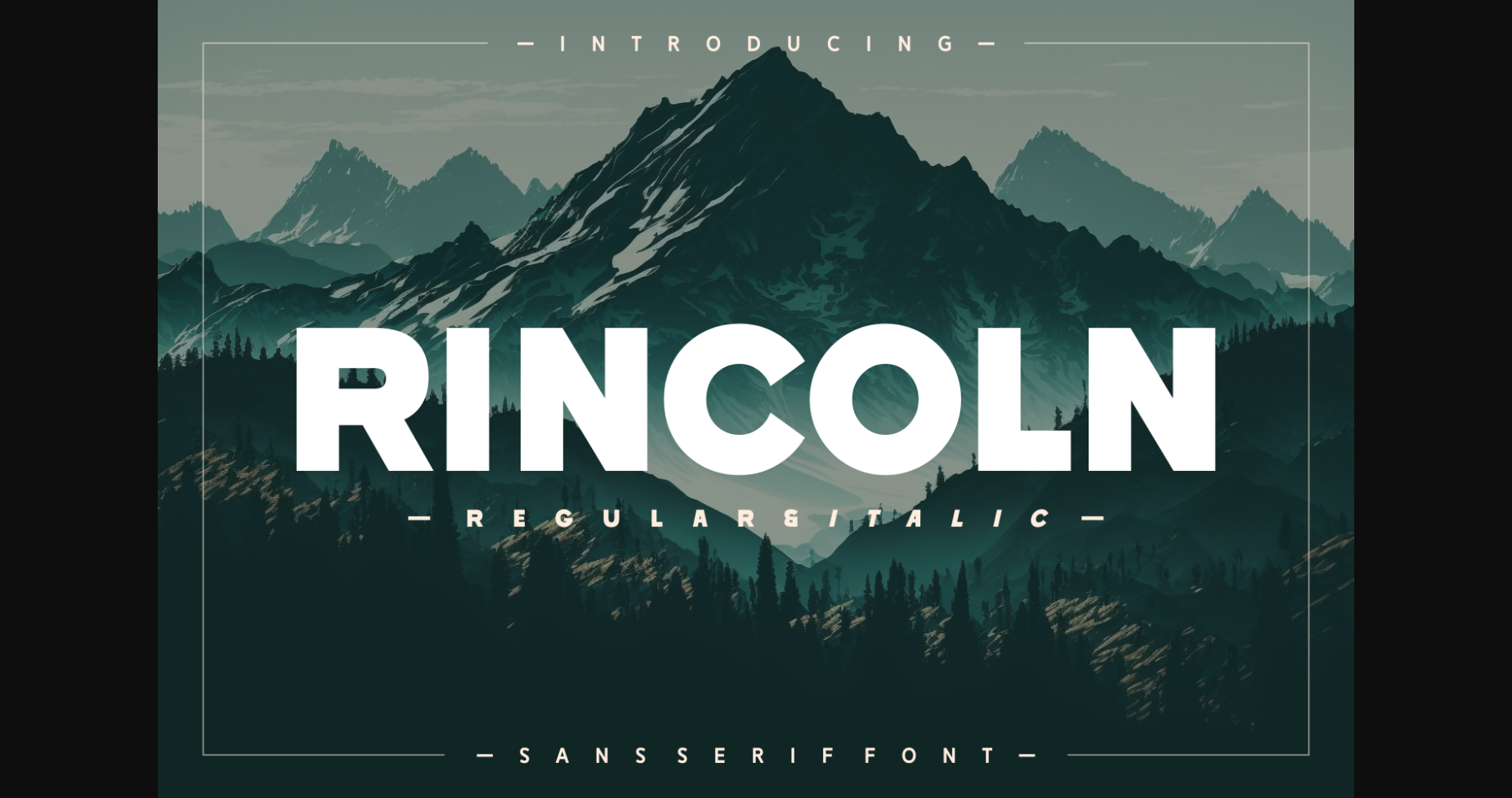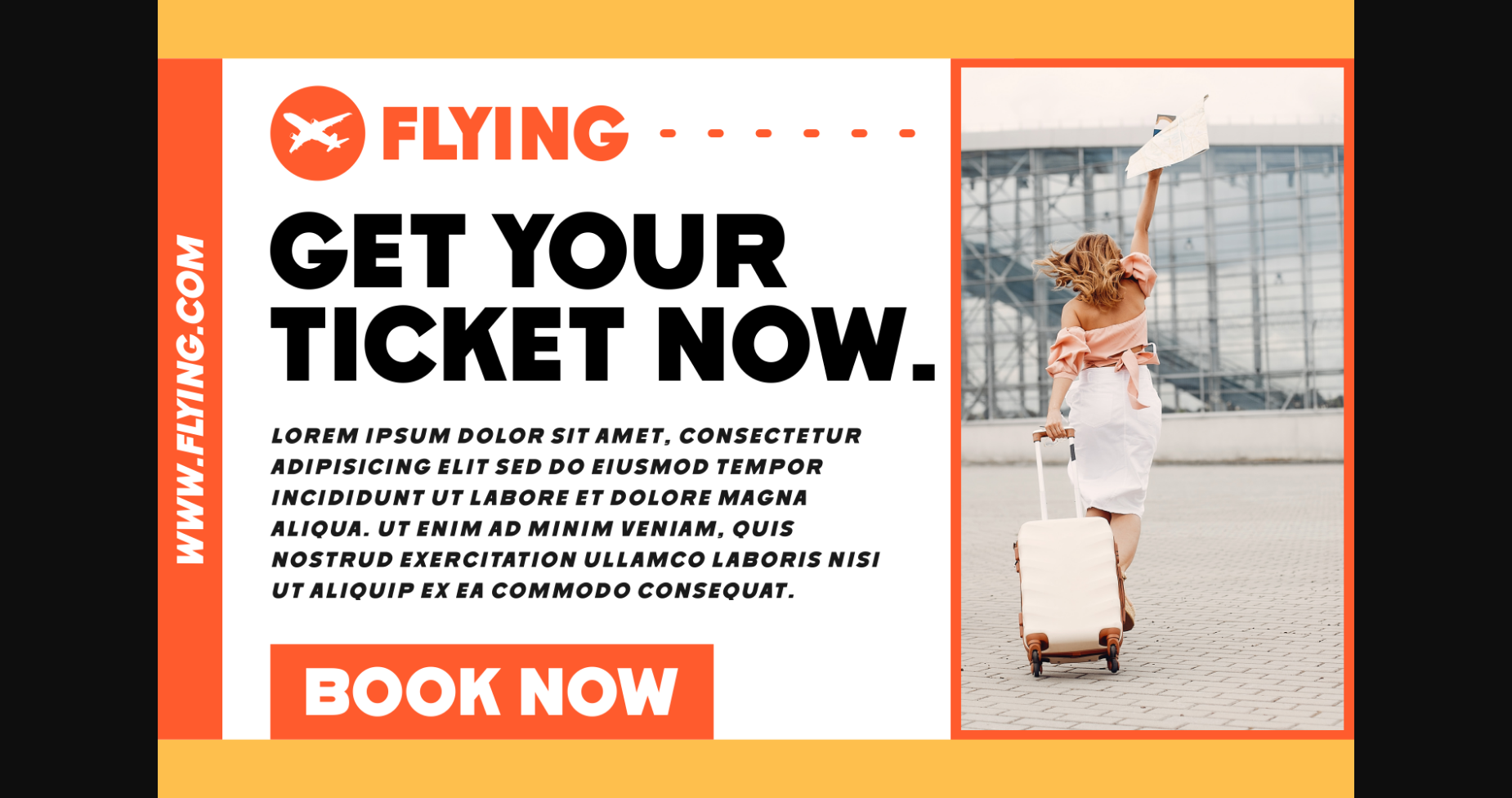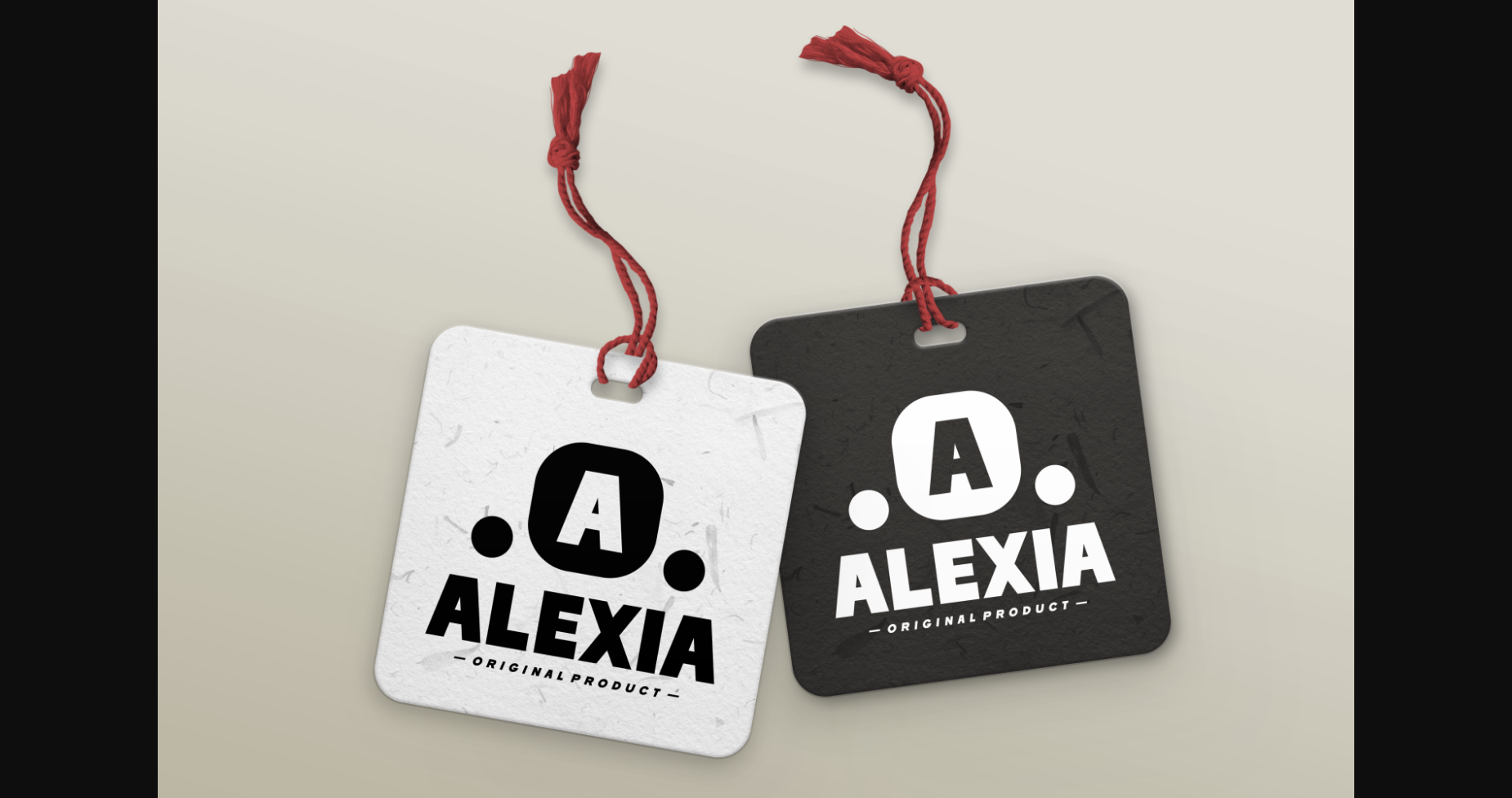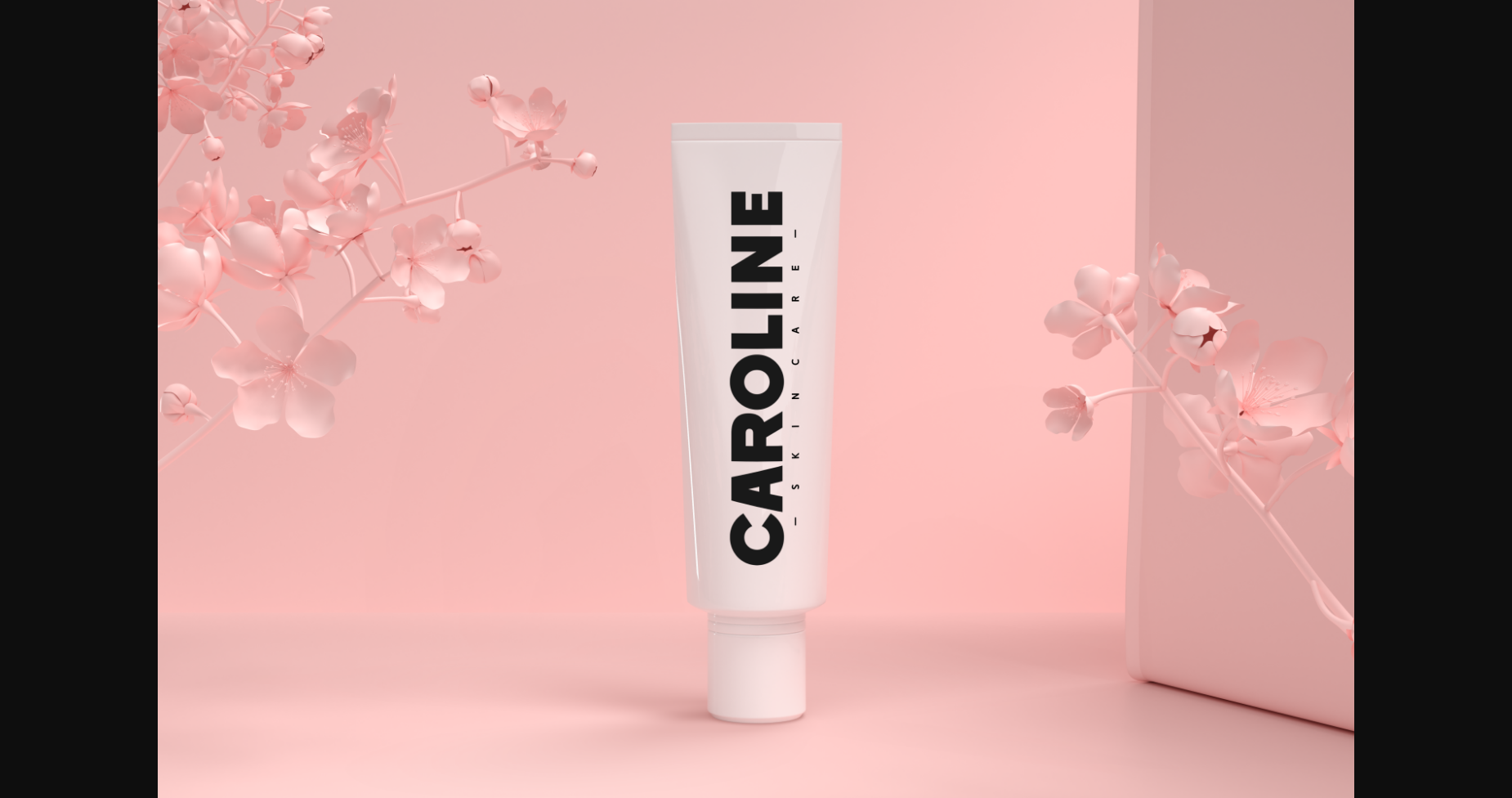
About Rincoln Font
Rincoln is a neat and bold sans serif font that exudes a sense of strength and confidence. Its clean, straight lines and geometric shapes create a sleek and modern appearance, while the consistent stroke weight and letter spacing make it easy to read at any size. The unique character shapes and subtle details give Rincoln a distinctive and memorable appearance, making it perfect for branding, advertising, and editorial design that requires a bold and impactful statement.